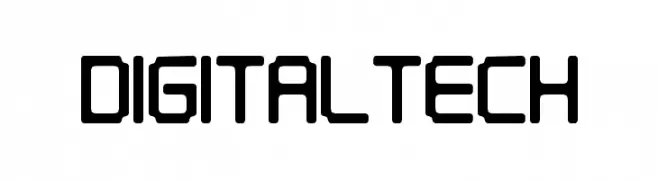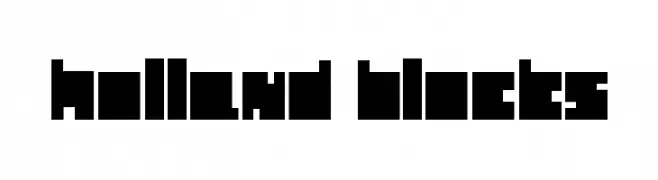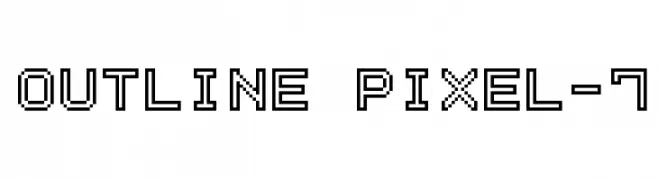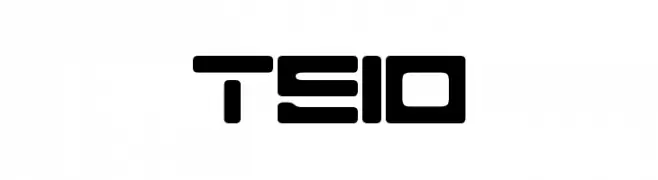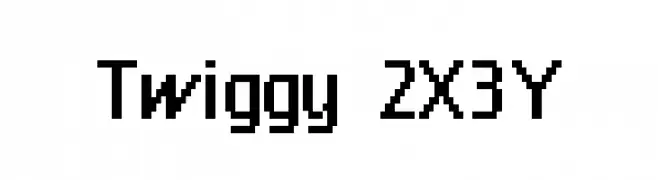
A playful, geometric font with dotted and linear matchstick-like elements.
A futuristic, geometric font with bold, rounded shapes and tight spacing.
A futuristic, digital-inspired font with bold, geometric shapes and rounded corners.
A bold, geometric font with a blocky, pixel-art style.
A modern, dot-based font with a digital, pixelated style.
A pixelated outline font with a retro digital aesthetic.
A pixelated, retro-style font with a blocky, geometric design.
A dot matrix style font with a retro digital display appearance.
A pixelated, LED-inspired font with a modern, digital aesthetic.